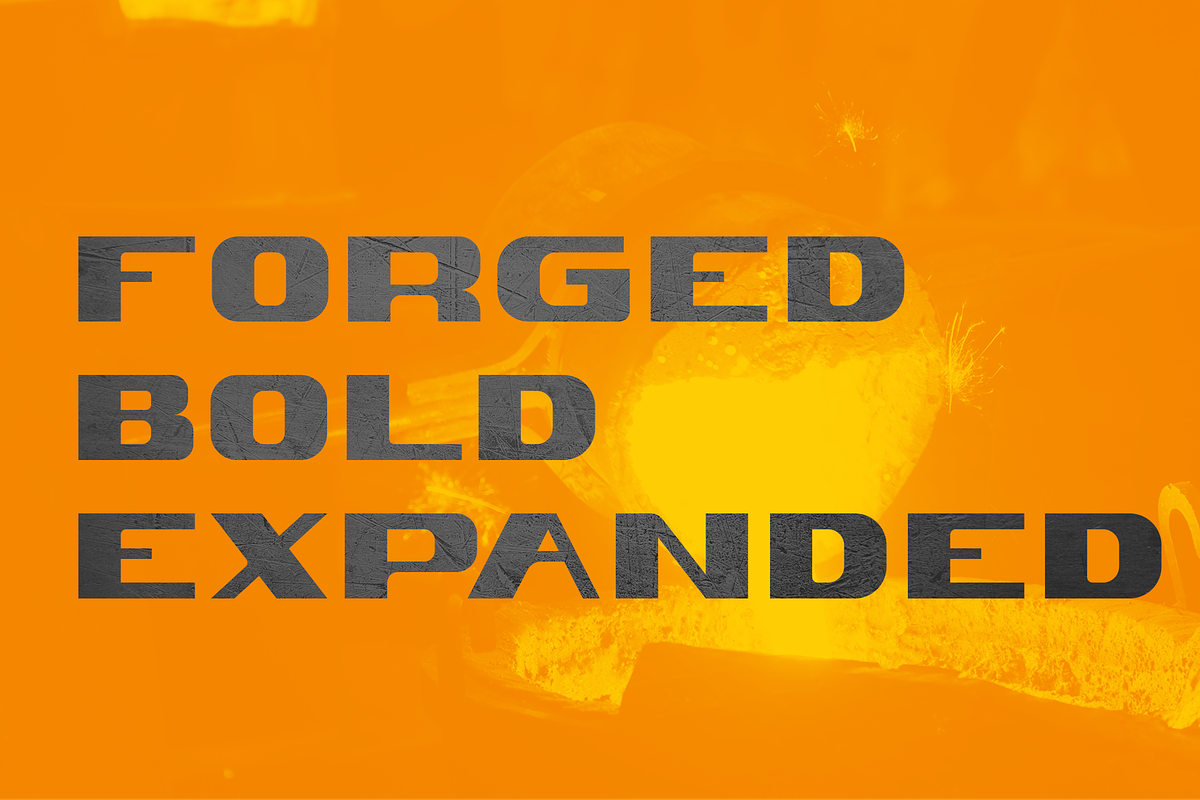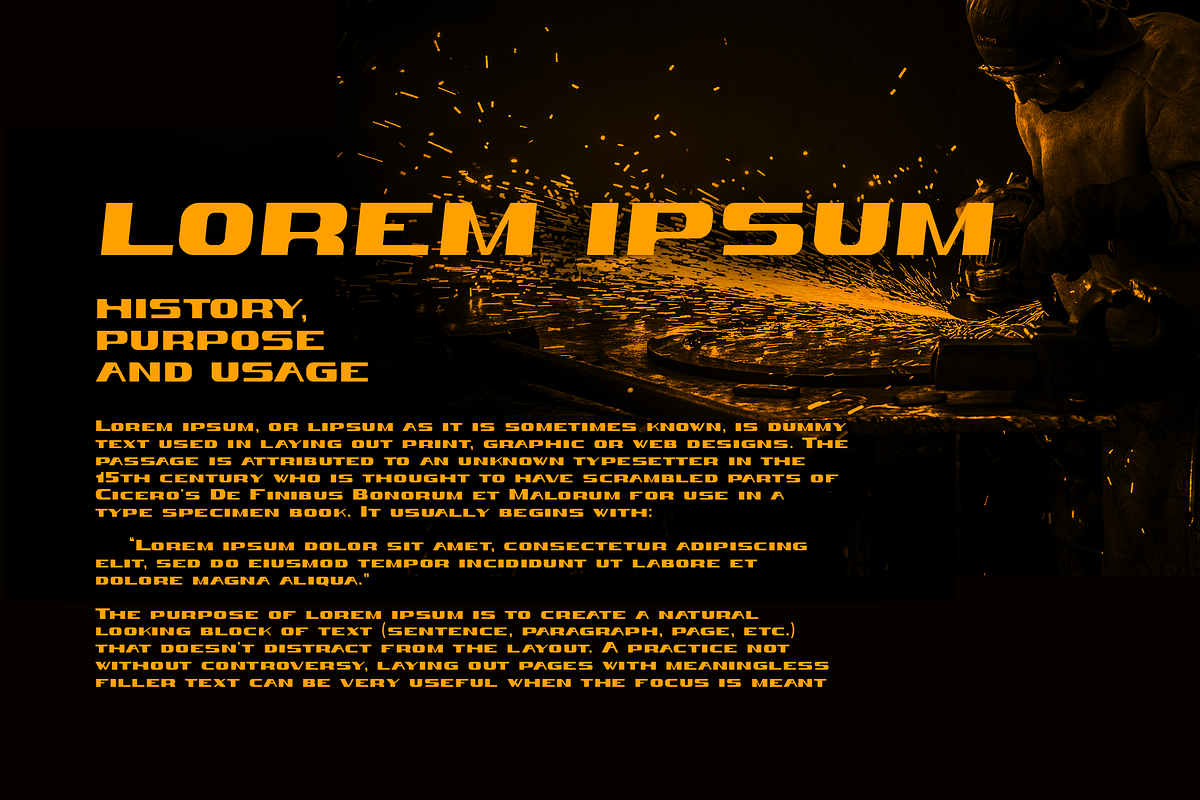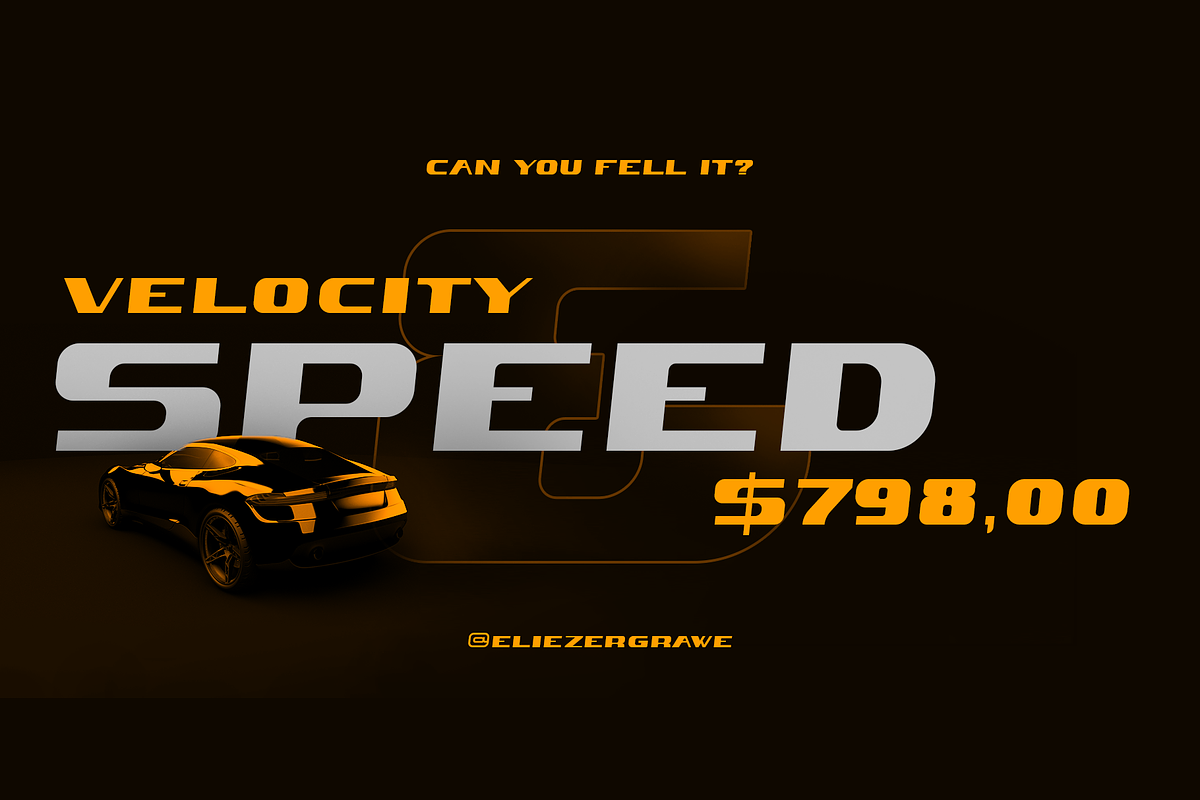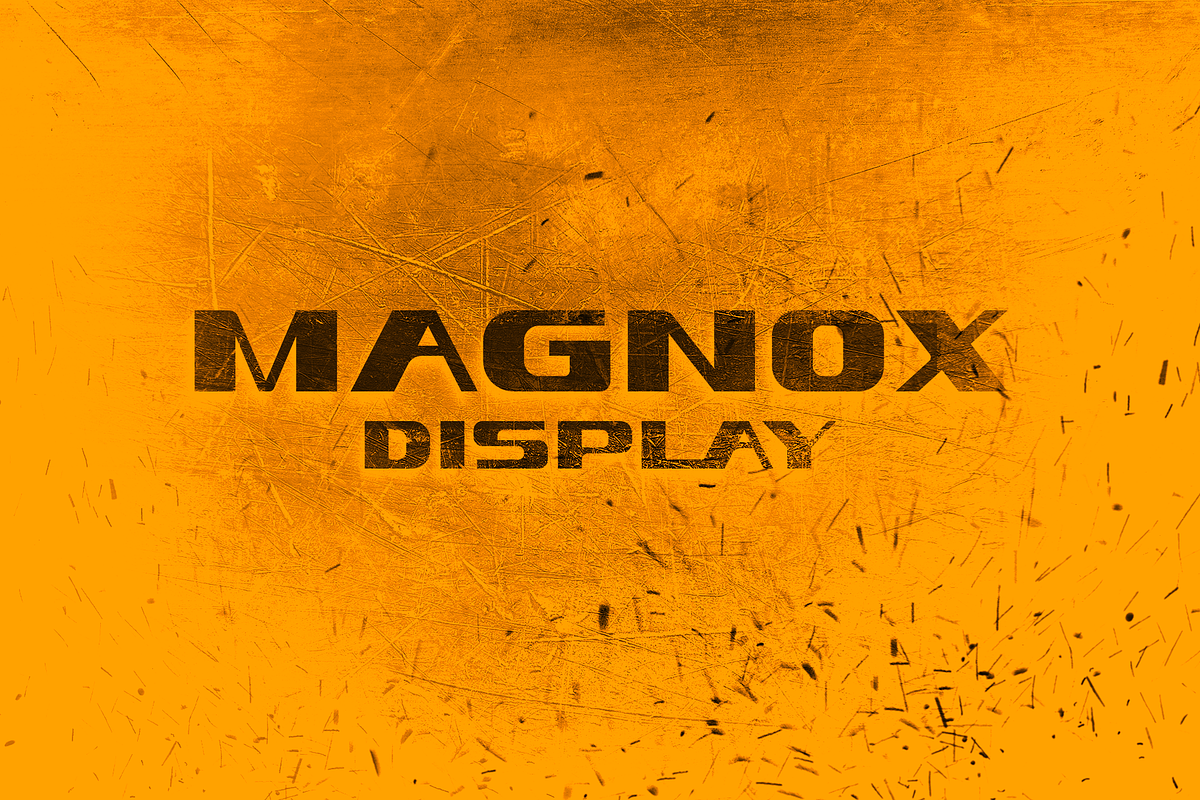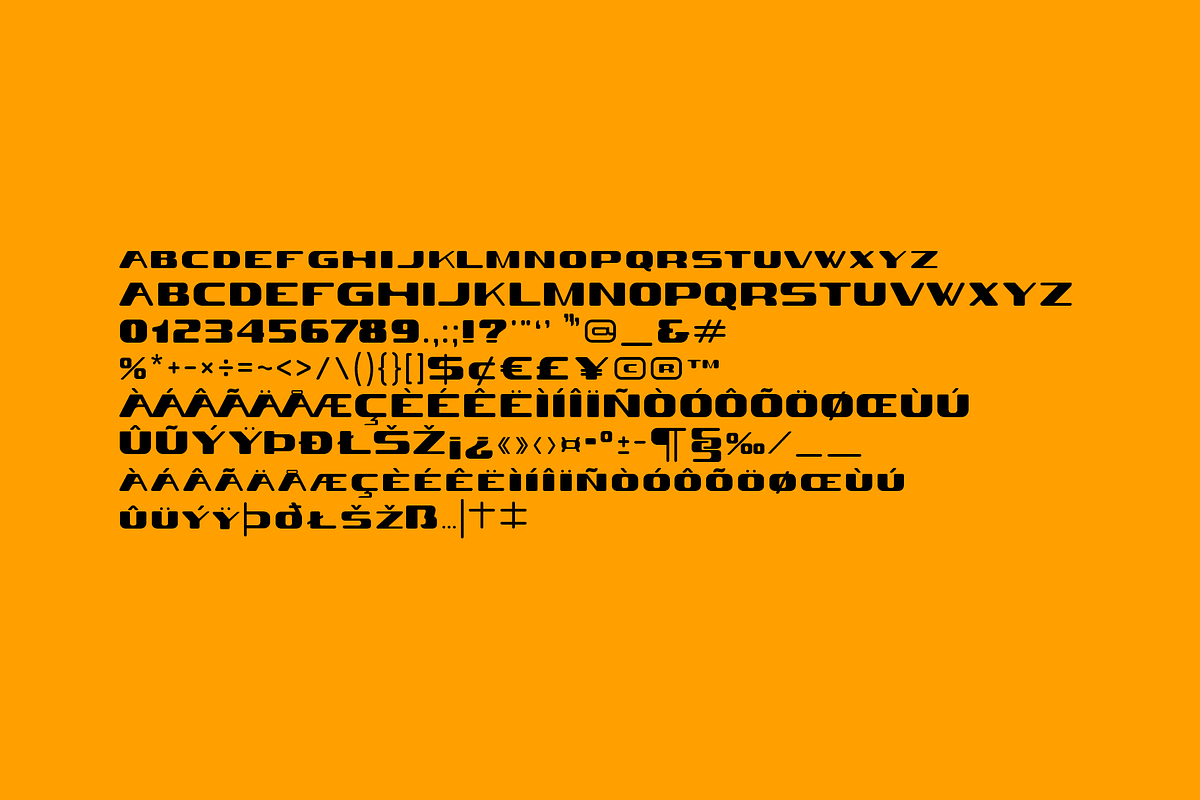
Magnox Display
Magnox Display is a family of geometric and expanded display fonts. A strong font that brings impact and power to titles and can be combined with many other sans serif fonts. It has small caps and alternate glyphs and comes in regular, oblique, rounded, and rounded oblique versions.